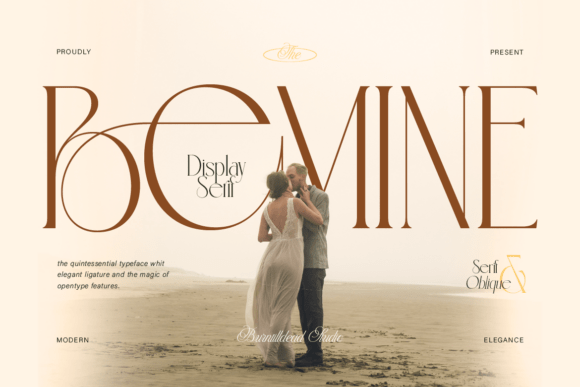
Bemine Font: Elevate Your Designs with a Touch of Elegance and Romance
In the world of typography, fonts play a crucial role in conveying the tone and aesthetic of a design. For projects that exude class, romance, and luxury, the right font can make all the difference. Introducing Bemine, a stunning display serif font that embodies the perfect blend of elegance and sophistication. With its unique and eye-catching look, Bemine is ideal for designs that aim to make a lasting impression.
The Unique Characteristics of Bemine Font
Bemine font boasts a distinctive style that sets it apart from other serif fonts. Its strong contrast between thick vertical strokes and thin horizontal lines creates a glamorous, luxurious, and high-fashion feel. This contrast not only adds visual interest but also contributes to the font’s classic and refined appearance. The result is a font that exudes a sense of opulence and sophistication, making it perfect for high-end designs.
Key Features of Bemine Font
• Strong Contrast: The font’s thick vertical strokes and thin horizontal lines create a striking contrast that adds depth and visual interest.
• Display Serif Font: Bemine is a display serif font designed to make a statement, perfect for headlines, titles, and other prominent design elements.
• Elegant and Refined: The font’s classic lines and sophisticated feel make it ideal for designs that require a touch of elegance and refinement.
• High-Fashion Feel: Bemine’s luxurious appearance makes it perfect for fashion branding, editorials, and other high-end design projects.
Ideal Uses for Bemine Font
Bemine font is versatile and can be used for a variety of design projects, including:
Wedding Invitations
Make your wedding invitations unforgettable with Bemine font. Its elegant and romantic feel creates the perfect tone for your special day.
Fashion Branding
Bemine font is ideal for fashion brands that want to convey a sense of luxury and sophistication. Use it for logos, packaging, or advertising materials to elevate your brand’s image.
Book Covers
Give your book a stylish and eye-catching cover with Bemine font. Its classic lines and refined feel make it perfect for fiction, non-fiction, and poetry books.
Headlines and Editorials
Make your headlines and editorials stand out with Bemine font. Its strong contrast and elegant feel create a striking visual effect that grabs attention.
Magazines and Publications
Bemine font is perfect for magazine and publication designs that require a touch of elegance and sophistication. Use it for titles, headings, and other prominent design elements.
Why Choose Bemine Font?
With so many fonts available, why choose Bemine? Here are a few reasons why Bemine font stands out:
Unique and Eye-Catching
Bemine font has a distinctive style that sets it apart from other serif fonts. Its strong contrast and elegant feel create a striking visual effect that grabs attention.
Versatile
Bemine font can be used for a variety of design projects, from wedding invitations to fashion branding, book covers, and more.
Elegant and Refined
Bemine font exudes a sense of elegance and refinement, making it perfect for designs that require a touch of sophistication and luxury.
Tips for Using Bemine Font Effectively
To get the most out of Bemine font, here are a few tips to keep in mind:
Use it for Headings and Titles
Bemine font is perfect for headings and titles, where its strong contrast and elegant feel can make a striking visual effect.
Pair it with a Simple Font
For body text, pair Bemine font with a simple, clean font to create a striking contrast between headings and body text.
Experiment with Colors and Textures
Don’t be afraid to experiment with different colors and textures to add depth and visual interest to your designs.
Bemine font is a stunning display serif font that embodies the perfect blend of elegance and sophistication. With its unique and eye-catching look, Bemine is ideal for designs that aim to make a lasting impression. Whether you’re designing wedding invitations, fashion branding, book covers, or editorials, Bemine font is the perfect choice for adding a touch of luxury and refinement to your designs.